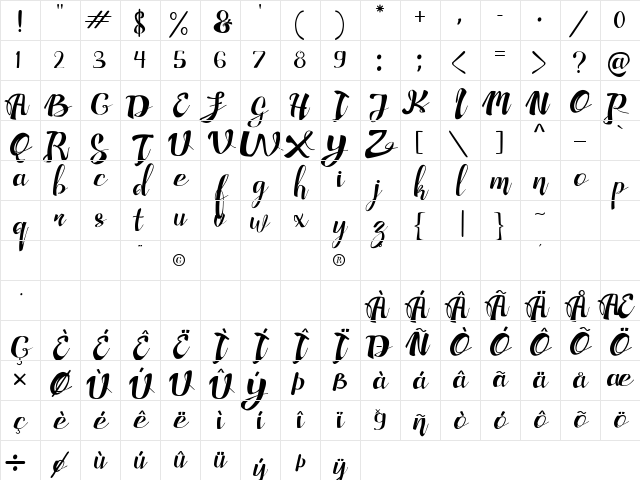
Adefebia Free Font Regular
Foundry: Ferry Hadriyan
Designer: Ferry Hadriyan
Design Context for Adefebia Free Font
Adefebia Free Font is a composed and adaptable typeface that performs quietly and consistently across a wide range of design contexts.